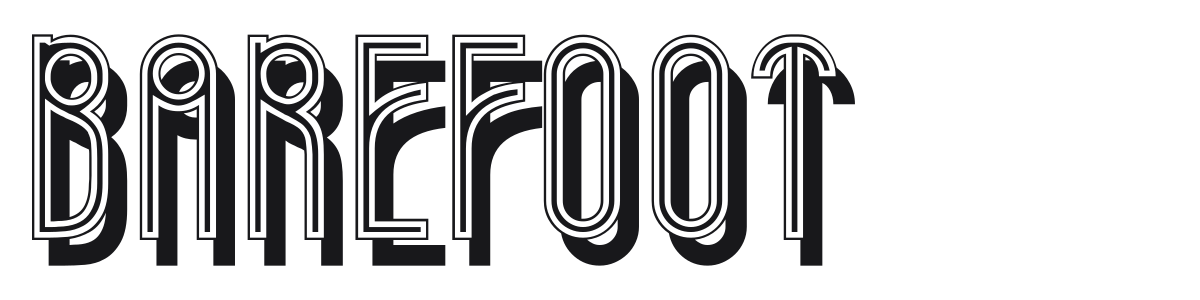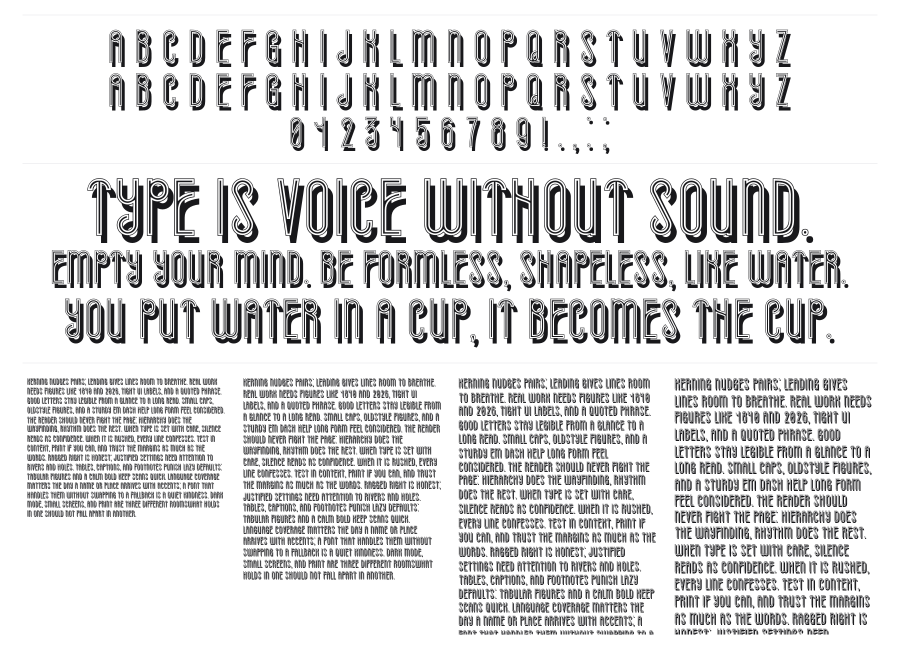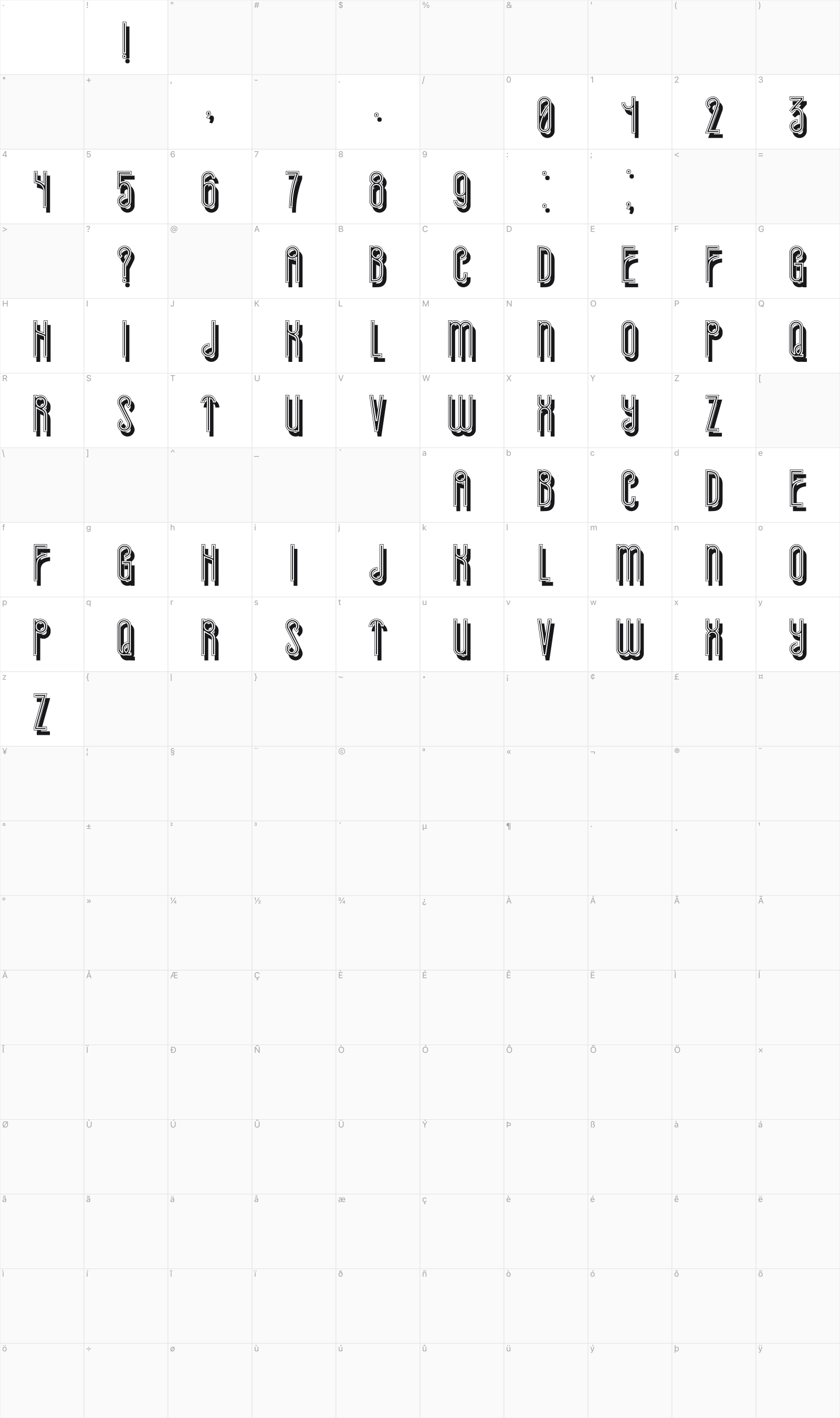
Barefoot
Barefoot is a tall condensed display font steeped in Art Deco showmanship, built around thick vertical strokes pierced by inline white lines that give each character a layered, engraved quality. The combination of rounded counters, high stroke contrast, and tight vertical proportions recalls the hand-lettered signage of 1920s and 30s entertainment. It commands attention at large sizes and suits anything that needs a vintage glamour punch.